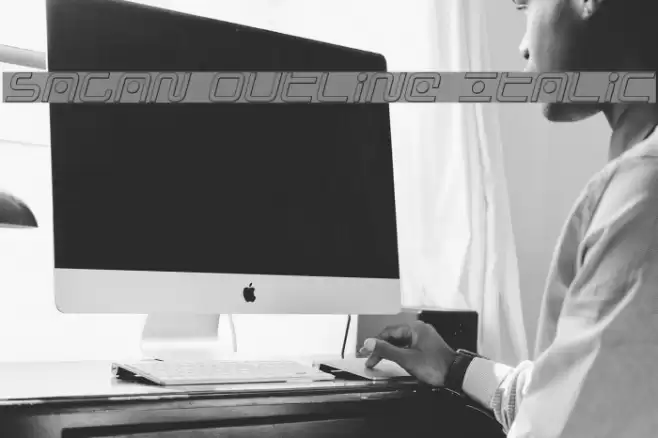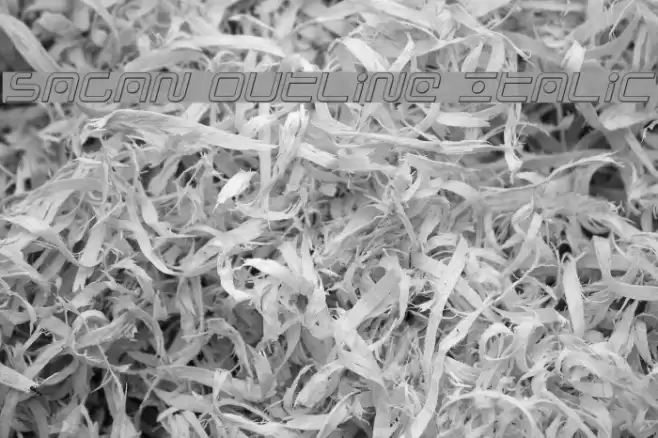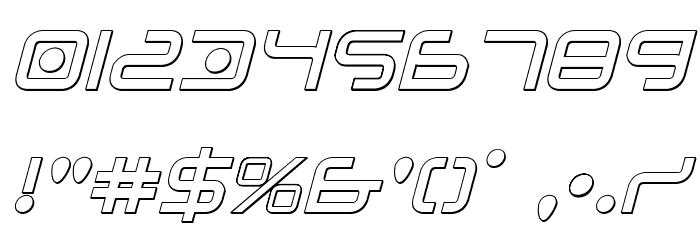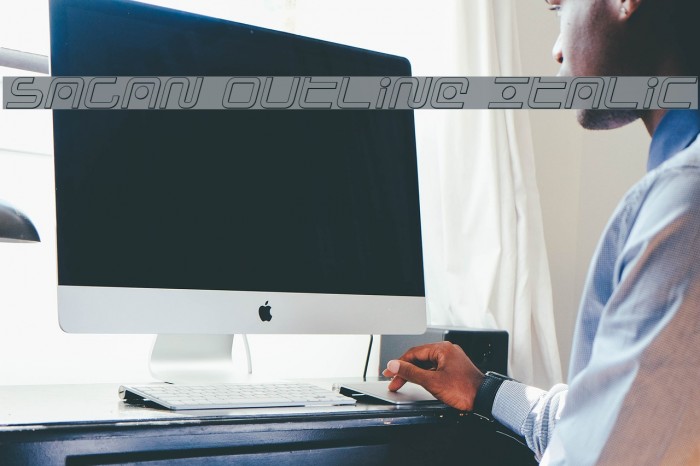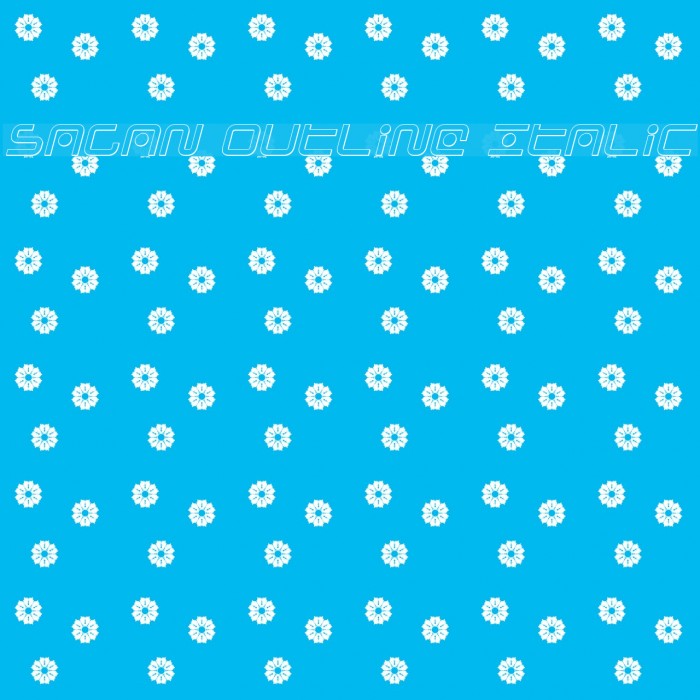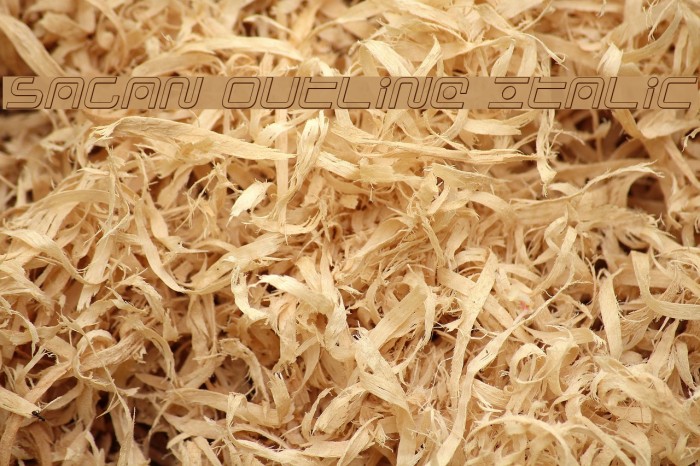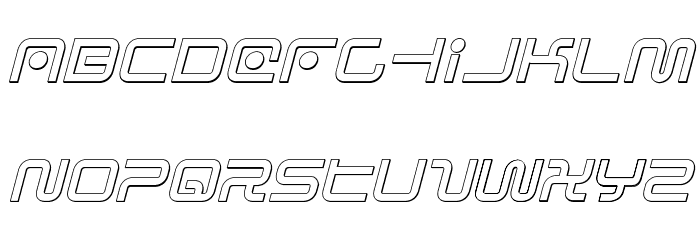
Sagan Outline Italic Font
Sagan Outline Italic Description
This font features a futuristic and geometric design with an outline style. The characters are italicized, giving them a dynamic and forward-leaning appearance. The letters are composed of clean, continuous lines that form distinct shapes, creating a sense of movement and modernity. The uppercase and lowercase letters maintain a consistent style, with rounded edges and uniform line thickness. The numerals and special characters follow the same design principles, ensuring a cohesive look across all glyphs. This font's unique outline and italicized form make it stand out, offering a visually striking option for various design projects.
A futuristic, geometric outline font with italicized characters from Sci-fi fonts.
- Proposed Projects: Ideal for sci-fi themed designs, technology branding, modern posters, and digital artwork.